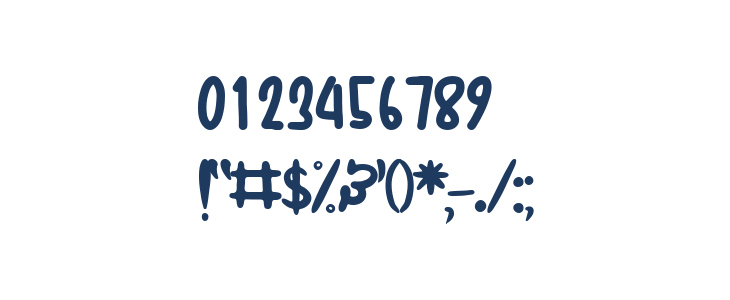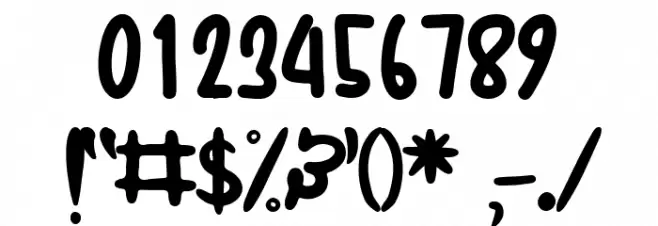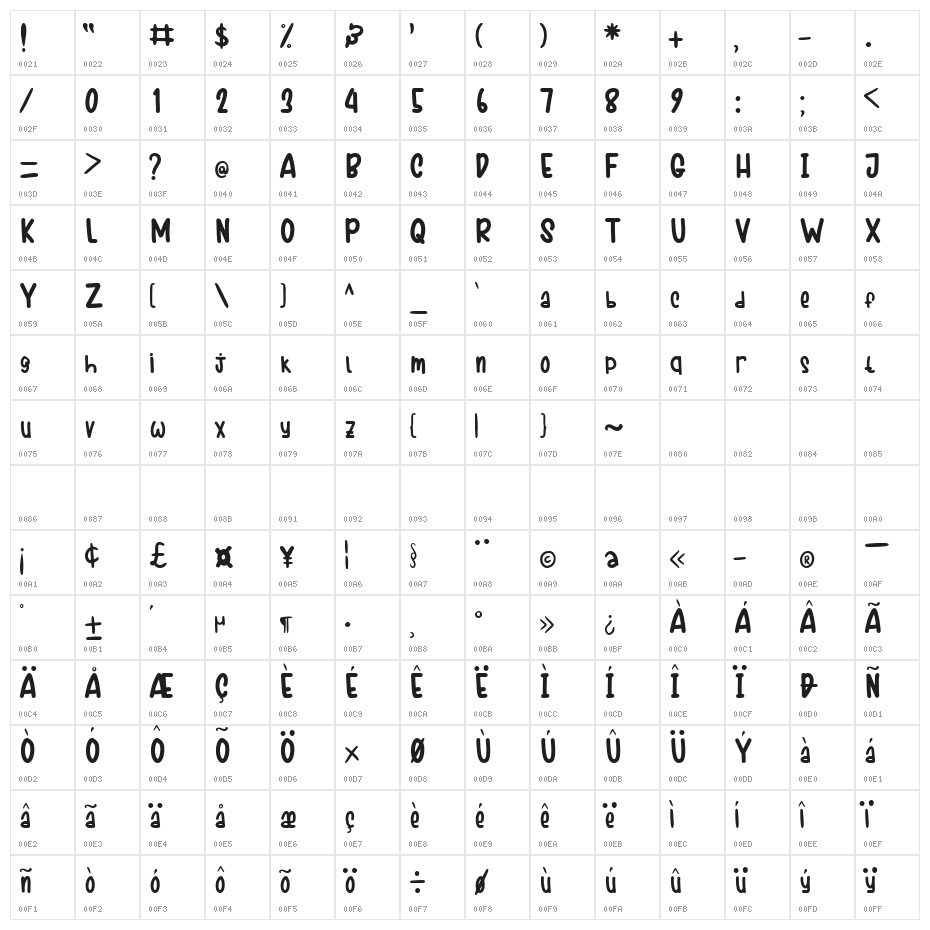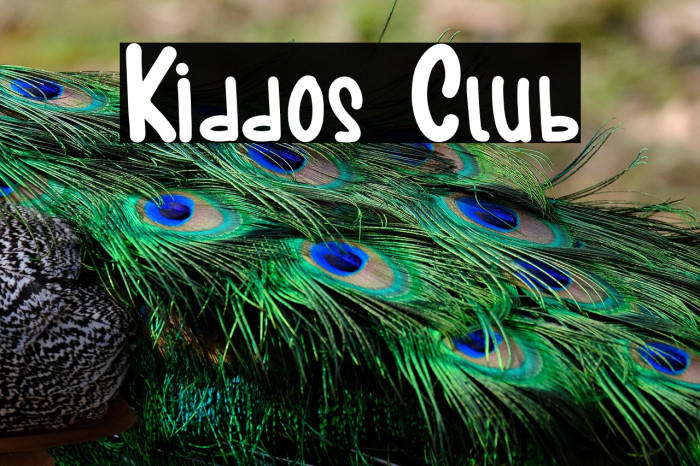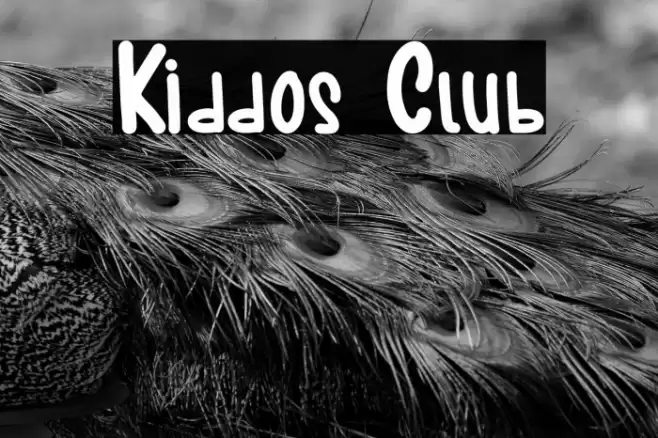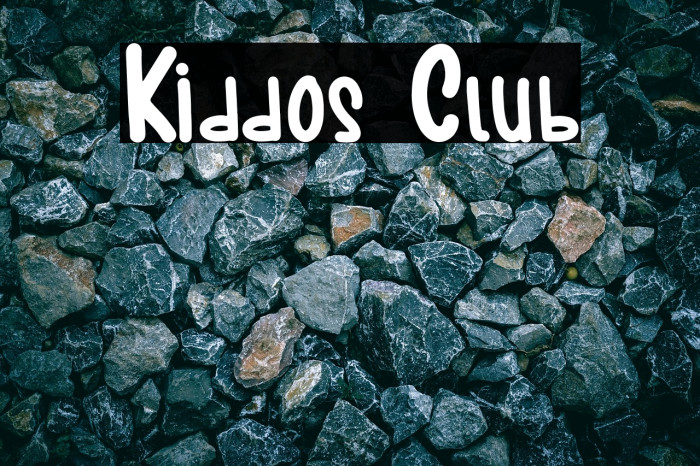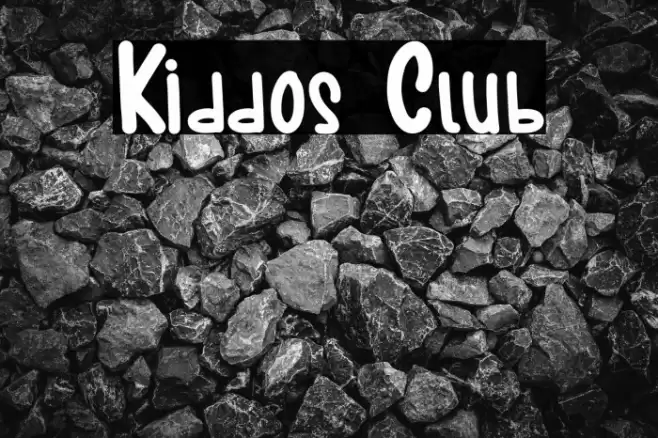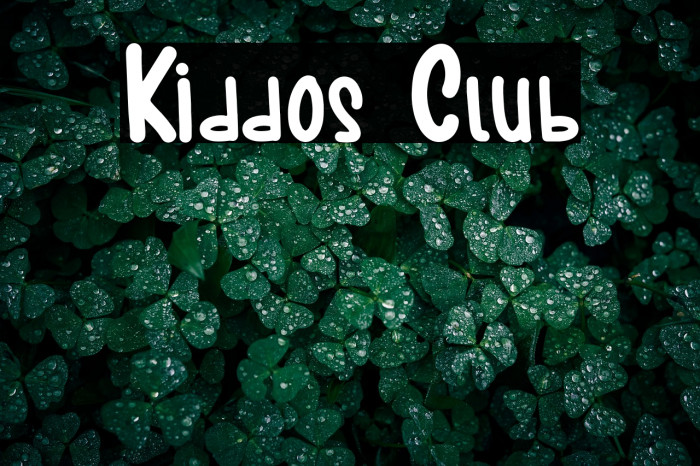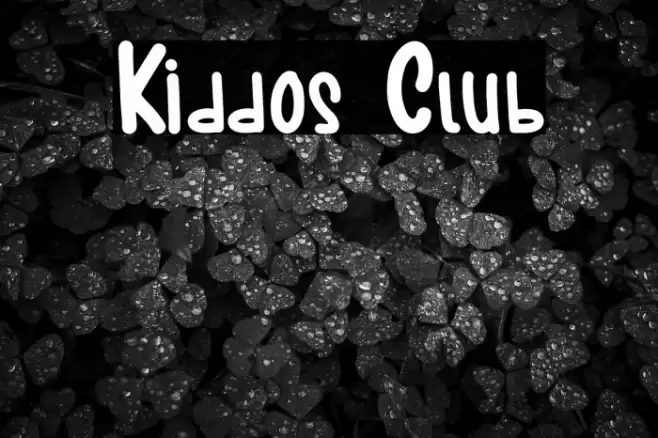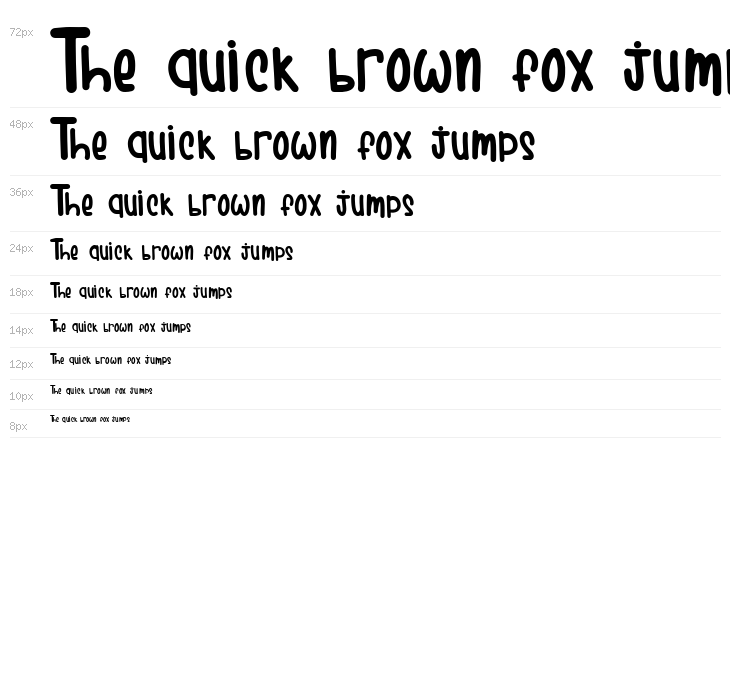
Kiddos Club Font
Kiddos Club Description
This playful and whimsical font features rounded, bold characters with a hand-drawn appearance. The letters are slightly irregular, giving them a friendly and approachable feel. The uppercase and lowercase letters maintain a consistent style, with a slight tilt that adds to the casual and fun vibe. The numbers and special characters are designed to match the overall playful aesthetic, making this font ideal for projects that require a touch of creativity and lightheartedness. Its bold strokes and rounded edges make it highly legible, even at smaller sizes, while the unique character shapes ensure it stands out in any design.